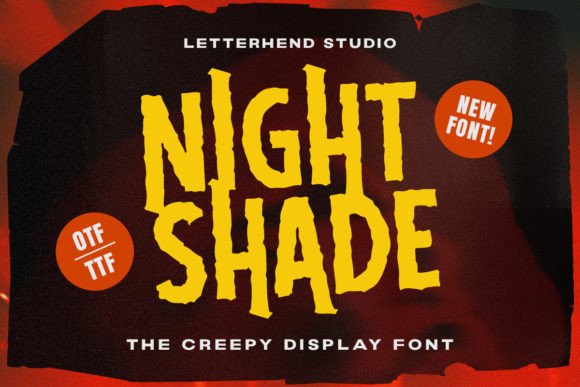
Introducing Night Side Font, the ultimate choice for those seeking an unforgettable and captivating design experience. Created by the talented minds at Letterhend, this display font is specifically crafted to cater to the needs of the dark reader. With its unique blend of spine-tingling dread and fascination, Night Side Font is guaranteed to leave a lasting impression on your audience.
Imagine venturing into the shadows, where mystery and intrigue lurk at every corner. Night Side Font invites you to explore this enigmatic realm and unleash your creativity like never before. With its captivating aura, this font effortlessly instills a sense of suspense, making it the perfect companion for all your design endeavors.
Whether you're delving into the world of classic horror or aiming to create a display masterpiece, Night Side Font is your ultimate creative ally. Its versatility knows no bounds, allowing you to effortlessly bring your ideas to life. From chilling book covers to haunting posters, this font is ready to elevate your designs to new heights.
But what sets Night Side Font apart from the rest? Its impeccable attention to detail and meticulous craftsmanship make it a true gem in the world of typography. Each character is intricately designed, ensuring a seamless and visually stunning experience for your audience. With Night Side Font, every letter becomes a work of art, adding a touch of elegance and sophistication to your projects.
But there's more to Night Side Font than meets the eye. This font not only captivates with its visual appeal but also evokes a myriad of emotions. Its dark and mysterious nature sparks curiosity, drawing your audience in and making them yearn for more. It creates a sense of anticipation, leaving a lasting impression that lingers in their minds.
Embrace the allure of Night Side Font and unlock a world of endless possibilities. With its rich history and captivating design, this font is the perfect companion for those who dare to push the boundaries of creativity. It allows you to effortlessly convey your message, leaving a lasting impact on your audience.
So why wait? Take a step into the unknown and let Night Side Font guide you on a journey through the shadows. Unleash your creativity, captivate your audience, and create designs that truly stand out. With Night Side Font, the possibilities are endless.